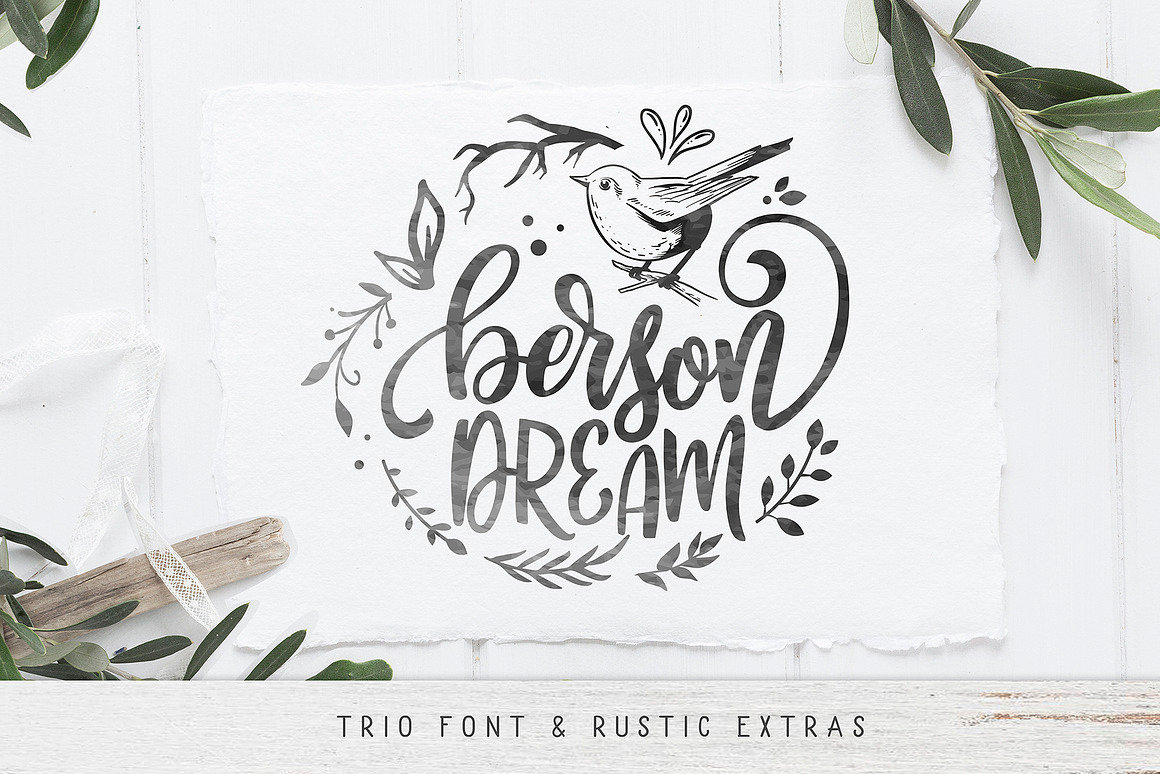
Berson Dream Font TRIO and extras
Berson Dream Font TRIO and extras is perfectly suited for creative brand identities, artistic logo combinations, dreamy wedding materials, inspirational social media graphics, fantasy book covers, whimsical packaging designs, imaginative children's projects, ethereal marketing campaigns, and enchanting storytelling applications.
What makes Berson Dream Font TRIO and extras so exciting is its magical versatility and dreamy aesthetic that provides designers with a complete typographic universe for creating enchanting visual narratives and imaginative brand experiences. This extraordinary collection combines three perfectly harmonized typefaces with bonus decorative elements, offering endless creative possibilities for projects that need to capture the essence of dreams, fantasy, and artistic inspiration. The trio's complementary styles work seamlessly together while maintaining individual character, creating typography that feels both cohesive and dynamically varied. Berson Dream Font TRIO and extras stands out through its ability to convey creativity, imagination, and artistic sophistication, making it perfect for projects that need to establish unique visual identities while inspiring audiences who appreciate beautiful design and creative storytelling.
The Berson Dream Font TRIO and extras includes three distinct typefaces with multiple weights and styles, each contributing unique character while maintaining perfect compatibility with the collection's companions. The package also features extensive decorative elements, ornamental graphics, and design extras that enhance the trio's creative appeal and provide comprehensive solutions for imaginative design projects requiring artistic flexibility.
The technical craftsmanship of Berson Dream Font TRIO and extras includes comprehensive character sets for all three fonts with uppercase and lowercase letters, numerals, punctuation marks, and creative symbols that maintain the collection's artistic character. Each font has been carefully optimized for both digital and print applications, ensuring consistent performance while preserving the dreamy details that give them their distinctive creative character and inspiring appeal.
Whether you're designing creative brand systems, developing artistic marketing materials, creating imaginative storytelling projects, or crafting designs that require artistic versatility and dreamy sophistication, Berson Dream Font TRIO and extras delivers the perfect combination of creative inspiration and professional functionality that makes your projects artistically compelling and memorably beautiful for audiences seeking genuine creativity and imaginative excellence.